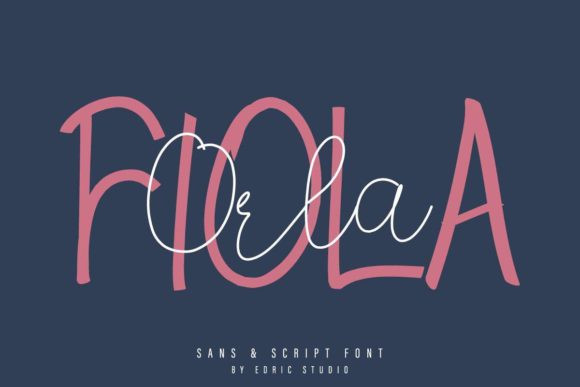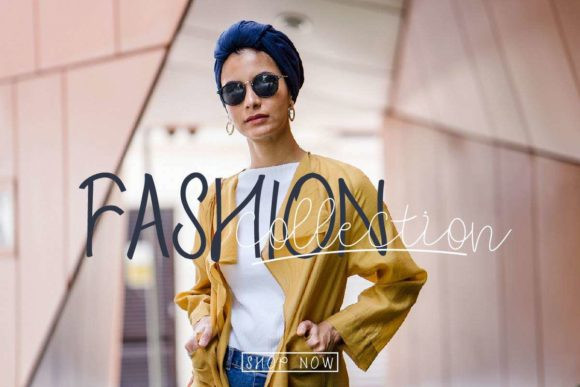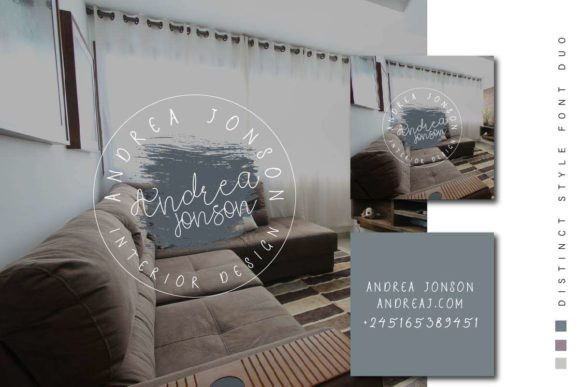
Orla Fiola Font
Orla Fiola is an amazing duo font. It features script style with sans serif. Combining these two fonts on your next design will give a modern and stunning feel. It will elevate a wide range of design projects to the highest level, be it branding, headings, wedding designs, invitations, signatures, logos, labels, and much more!